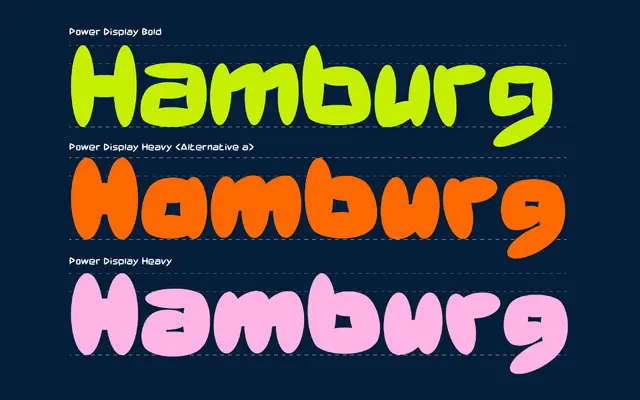
Power Display
Power Type · Teguh Arief · 2022
A funk-inflected display typeface by Teguh Arief available as a variable font across three widths and six weights, aimed at branding, logotype and packaging work.
Designed by Teguh Arief and released in April 2022, the family spans Condensed, Regular and Expanded widths, each running from Light to Heavy, with oblique companions, totalling 18 styles. The foundry frames it as a blend of funk and modern aesthetics, suited to both vintage-leaning and contemporary design contexts. Available in OTF, TTF, WOFF and WOFF2 formats with support for over 92 Latin-script languages.
Explicitly categorised by the foundry as Decorative/Display; the funk-influenced letterforms with three width variants and obliques place it firmly in the expressive display category rather than any text-type tradition.